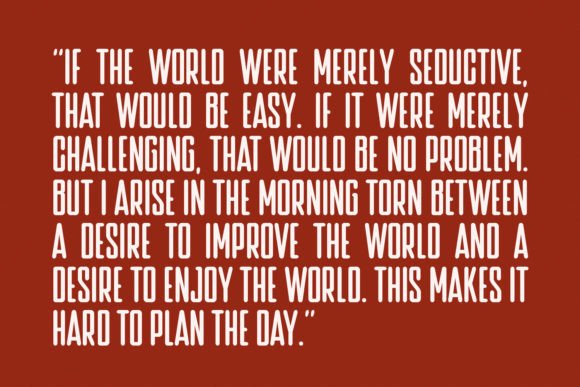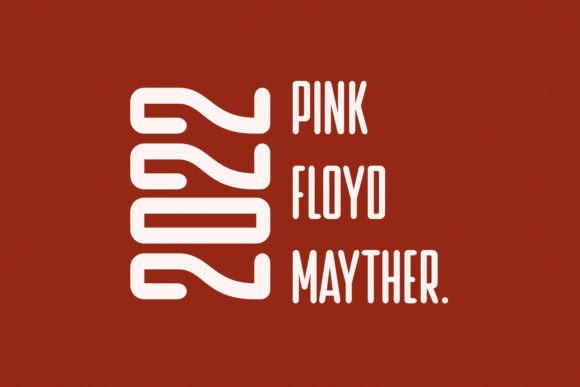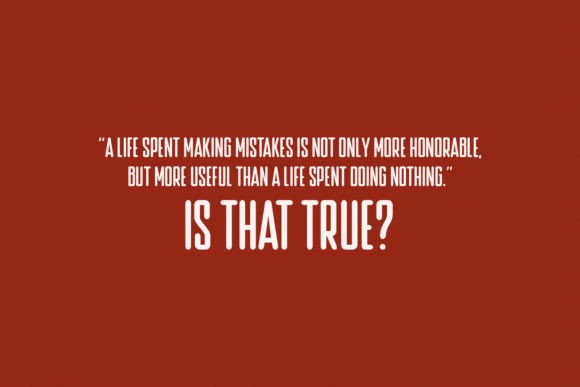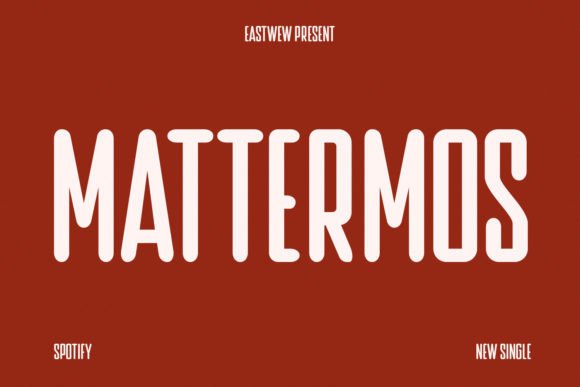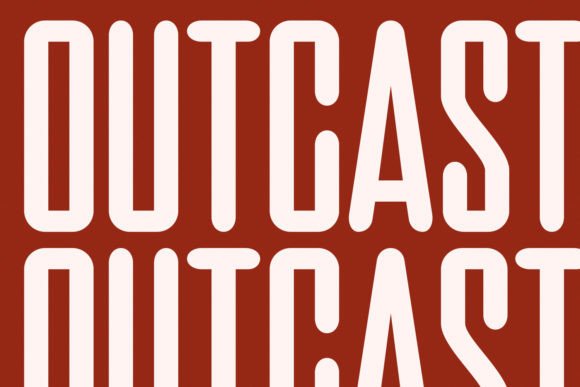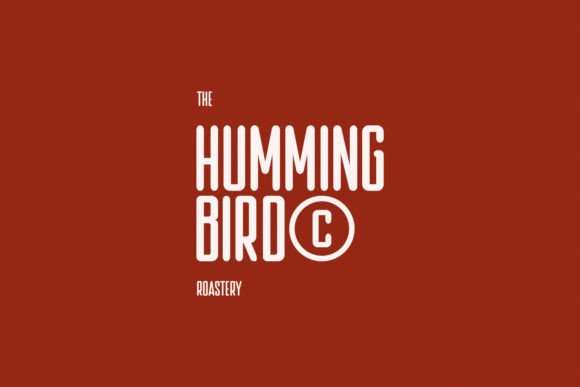
Introducing Bonica Font: The Ultimate Casual Modern Condensed Sans Serif
In the world of typography, fonts play a crucial role in conveying messages, evoking emotions, and creating visual identities. For designers and crafters, finding the perfect font can be a daunting task, especially when it comes to creating stunning visual works. This is where Bonica Font comes in – a casual modern condensed sans serif font that is taking the design world by storm.
What is Bonica Font?
Bonica is a carefully crafted font that boasts a unique blend of modernity and playfulness. With its medium low contrast stroke, this font exudes a sense of fun and approachability, making it perfect for a wide range of design applications. One of the standout features of Bonica is its thoughtful design elements, including ligatures and alternates, which provide designers with the creative freedom to experiment and push the boundaries of typography.
Key Features of Bonica Font
- Casual and Modern: Bonica’s design is rooted in modernity, with a casual twist that sets it apart from more traditional fonts.
- Condensed Sans Serif: The font’s condensed sans serif style makes it perfect for use in a variety of contexts, from logo design to long-form text.
- Medium Low Contrast Stroke: The subtle contrast in Bonica’s stroke adds depth and character to the font, making it highly legible and visually appealing.
- Fun Character: Bonica’s playful personality shines through in its unique character set, complete with ligatures and alternates.
Use Cases for Bonica Font
Bonica’s versatility is one of its most compelling features, making it suitable for a wide range of design applications. Here are some of the ways you can use Bonica to elevate your designs:
- Logo Design: Bonica’s unique character and condensed style make it perfect for creating memorable and impactful logos.
- Social Media: The font’s casual and modern vibe makes it well-suited for social media graphics, posts, and stories.
- Movie Titles and Book Titles: Bonica’s bold and playful personality makes it an excellent choice for movie and book titles, adding a touch of sophistication and whimsy.
- Short and Long Text: Whether you’re working with short phrases or longer blocks of text, Bonica’s high legibility and readability make it an excellent choice.
- Secondary Text: Bonica pairs perfectly with sans serif and serif fonts, making it an excellent option for secondary text and supporting content.
Tips for Working with Bonica Font
To get the most out of Bonica, here are some expert tips to keep in mind:
- Experiment with Ligatures and Alternates: Don’t be afraid to get creative with Bonica’s ligatures and alternates – they’re there to help you add a personal touch to your designs.
- Mix and Match with Other Fonts: Bonica’s versatility makes it easy to pair with other fonts – experiment with different combinations to find the perfect match.
- Play with Contrast: Bonica’s medium low contrast stroke provides a great starting point for adding visual interest to your designs – experiment with different contrast levels to find the perfect balance.